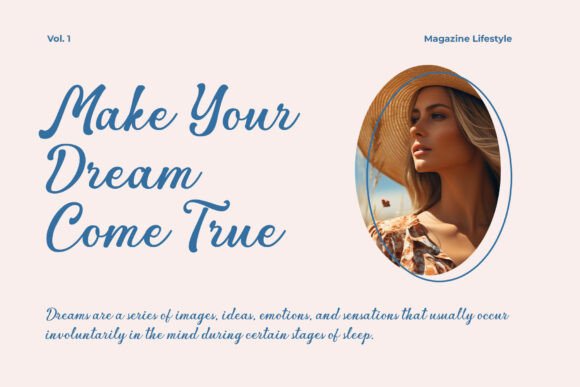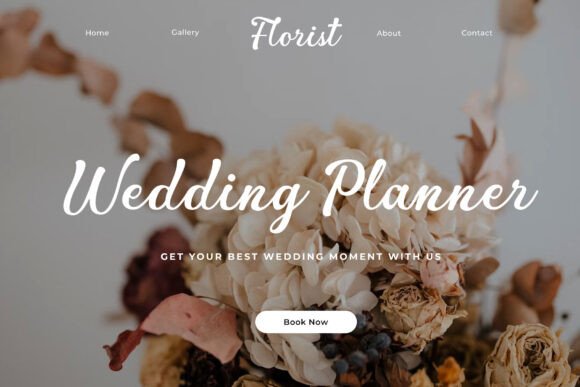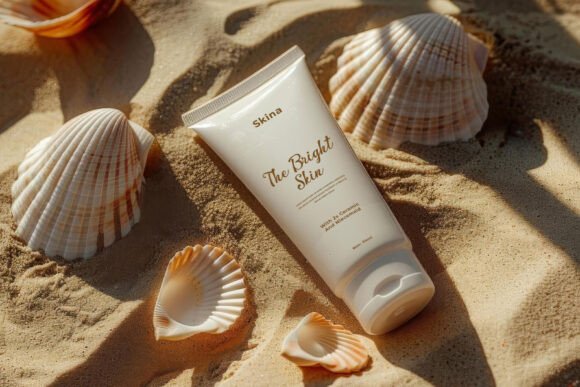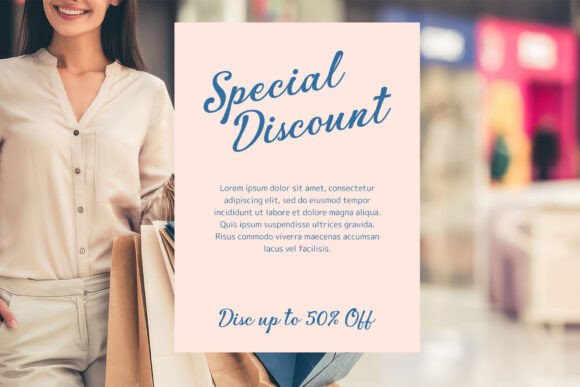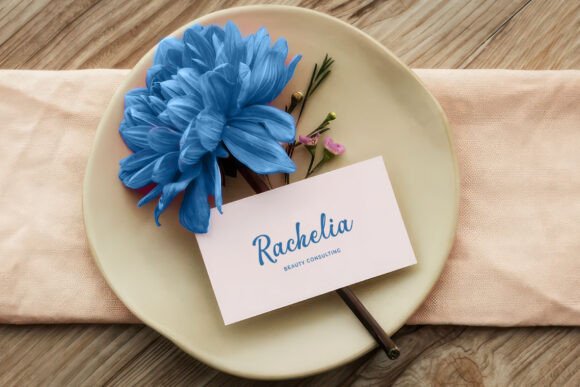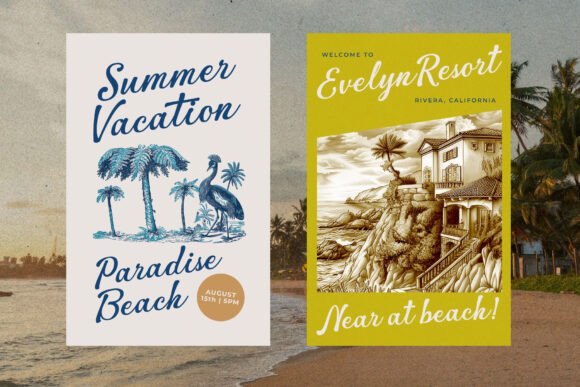
Introducing Heguita Font: Elevate Your Designs with Modern Script Elegance
In the world of design, fonts play a pivotal role in conveying the essence and aesthetic of a project. Whether you’re crafting a logo, designing an album cover, or creating engaging content for a magazine, the right font can make all the difference. This is where Heguita Font comes into play—a modern script font that is redefining the way we approach typography in design. With its smooth, flowing curves and charming handwritten vibe, Heguita is not just a font; it’s an artistic statement that can elevate your design projects to new heights of attractiveness and sophistication.
The Essence of Heguita: A Modern Script Font
Heguita is meticulously designed to bring a touch of modernity and class to your designs. Its smooth, flowing curves are crafted to provide a seamless reading experience while adding a unique stylistic element to your work. This font is the epitome of elegance, making it perfect for designers and crafters looking to infuse their projects with a chic, sophisticated feel. Whether you’re working on a logo, a title, or any textual content that needs to stand out, Heguita’s modern script style ensures your design communicates luxury and refinement.
Versatility at Its Best: Use Cases for Heguita Font
One of the standout features of Heguita is its versatility. This font is not limited to a specific genre of design; rather, it can be seamlessly integrated into a wide array of creative endeavors. Here are some of the ideal use cases for Heguita:
- Logos and Branding: Use Heguita to create memorable logos and brand names that exude elegance and professionalism.
- Photography Watermarks: Add a touch of class to your photographs with Heguita used as a watermark.
- Covers and Album Art: Make your music albums, books, or magazine covers stand out with Heguita’s stylish appeal.
- Wedding and Event Designs: From wedding invitations to event banners, Heguita brings a romantic and sophisticated touch.
- Corporate Branding: Elevate your corporate identity with Heguita’s modern and classy aesthetic.
- Quotes and Typography Art: Create inspiring typography art with Heguita that speaks volumes.
- Business Cards: Stand out in the professional world with business cards designed using Heguita.
Why Choose Heguita?
Choosing Heguita for your design projects comes with numerous benefits:
- Easy to Use: Heguita is designed to be user-friendly, making it accessible even for those with basic design knowledge.
- Modern and Classy: It brings a contemporary feel to your designs, ensuring they are always on-trend.
- Handwritten Touch: Adds a personal and creative touch to your work, making it more engaging.
- Versatile: Suitable for a myriad of design projects, from digital content to print materials.
Heguita Font is more than just a typography; it’s a design companion that can transform your creative projects with its modern script elegance. Whether you’re a professional designer or a DIY enthusiast, Heguita offers the perfect blend of style, versatility, and user-friendliness. By incorporating Heguita into your design toolkit, you’re not just choosing a font; you’re embracing a design philosophy that prioritizes elegance, sophistication, and creativity. So, why settle for ordinary when you can make your designs extraordinary with Heguita?